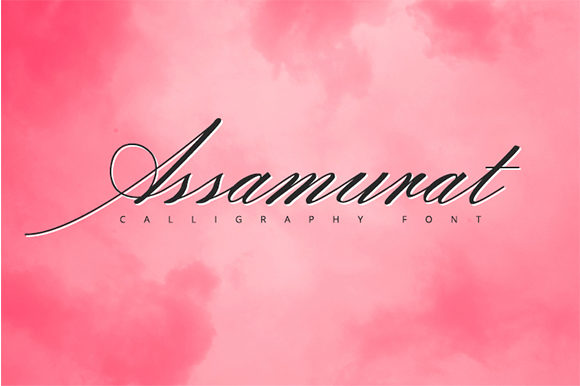
In a world of digital monotony, where fonts often blend into a sea of sameness, behold Assamurat Font - a captivating script font family that breaks free from the ordinary, infusing your designs with a touch of grace and timeless elegance. Created by the visionary designers at Justlett, Assamurat is a masterpiece that dances on the delicate line between classic calligraphy and modern artistry.
Unleash your creativity and allow Assamurat to transform your designs into works of art. Whether you're crafting stunning logos, elegant invitations, heartfelt cards, or eye-catching social media graphics, Assamurat's enchanting curves and flowing lines will elevate your words, captivating your audience with their undeniable charm.
Experience the versatility of Assamurat, a font that effortlessly adapts to a myriad of design styles. Its delicate strokes lend a touch of sophistication to traditional projects, while its contemporary flair seamlessly blends with modern aesthetics. From enchanting wedding invitations to playful branding materials, Assamurat possesses the rare ability to enhance any design concept with its timeless beauty.
Fall in love with the enchanting allure of Assamurat, a font that weaves a spell of visual delight. Its carefully crafted characters evoke a sense of nostalgia, reminiscent of handwritten letters penned with love and care. Let Assamurat's graceful lines transport you to a world of elegance and romance, where your words come alive with a captivating presence.